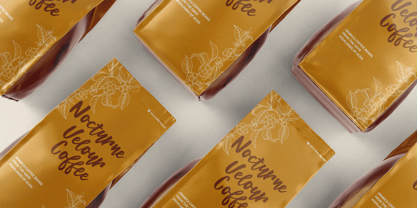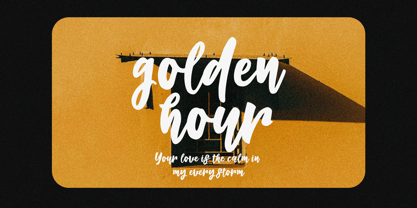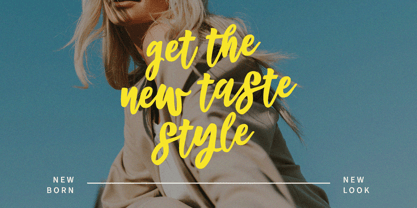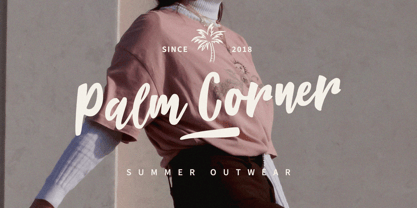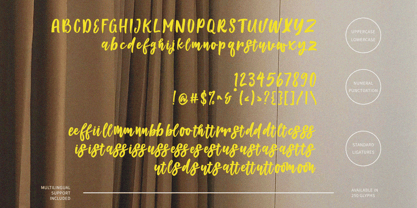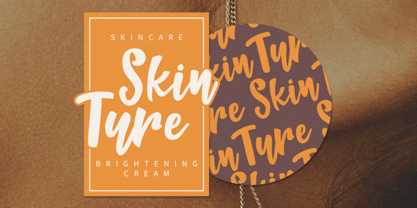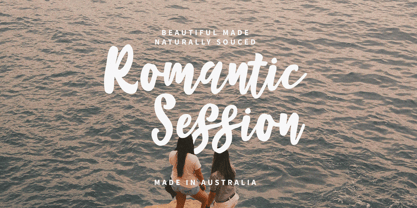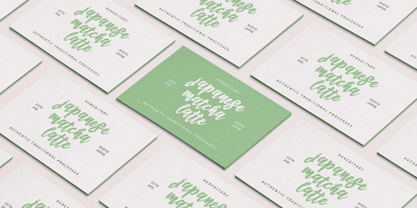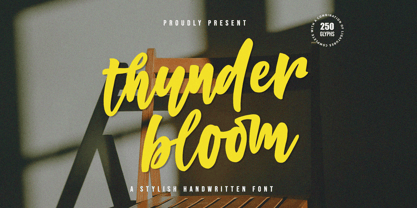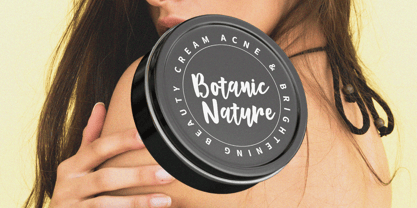
Thunder Bloom
The Thunder Bloom Font Family was designed by Muhammad Taufik and published by Rastype Studio. Thunder Bloom contains 2 styles and family package options. More about this family
Thunder Bloom is a bold and expressive handwritten script font that captures a natural brush style with a modern twist. Its flowing letterforms, smooth curves, and slightly textured strokes create an energetic and dynamic feel, making it perfect for eye-catching designs. The font balances elegance and playfulness, giving it strong personality while remaining highly readable. Ideal for branding, logos, social media graphics, posters, and packaging, Thunder Bloom adds a warm, handcrafted touch to any project. With its stylish ligatures and extensive glyph set, it offers flexibility for creative typography and unique lettering compositions.